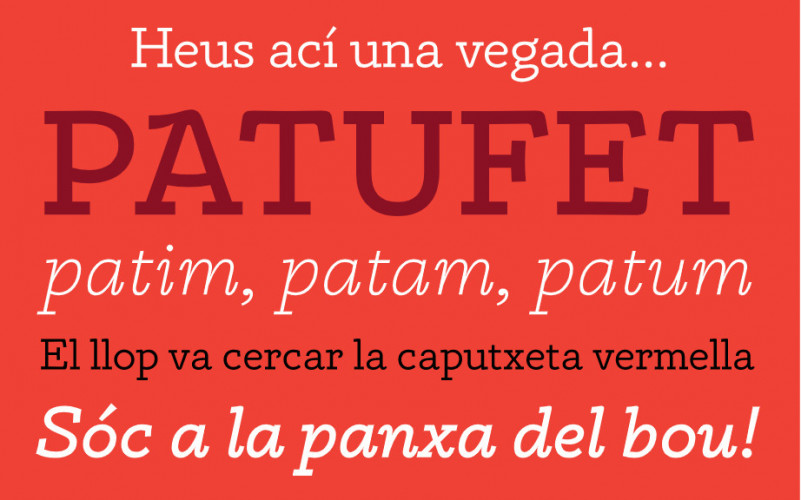
Patufet Font
Patufet is the main character of one of the most famous folktales of Catalan tradition. Patufet is usually represented as a very small child the size of a rice grain, wearing a big red ‘barretina’ (Catalan traditional cap) so that his parents can better spot him around the place. He is curious and mischievous, until one day he decides to show the world that he is useful and reliable. Taking the character into account, Patufet type family shows itself as a very simple and humble Roman typeface intended to be useful and readable enough for text purposes. Traditional Patufet’s wooden sabots have been converted to slab serifs so as to set its characters firmly on the baseline.